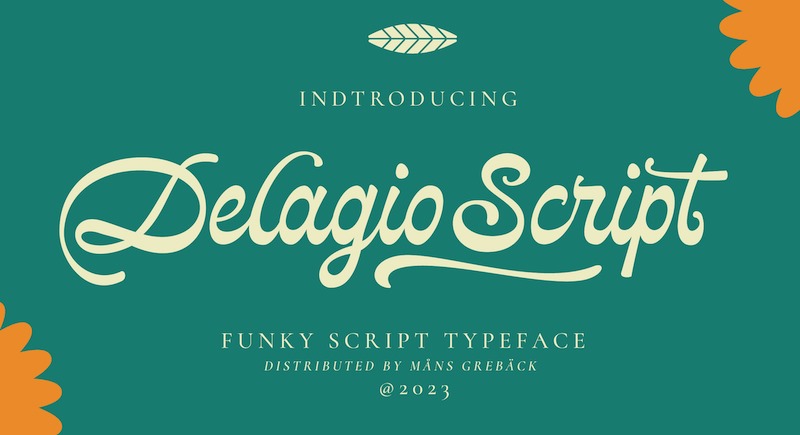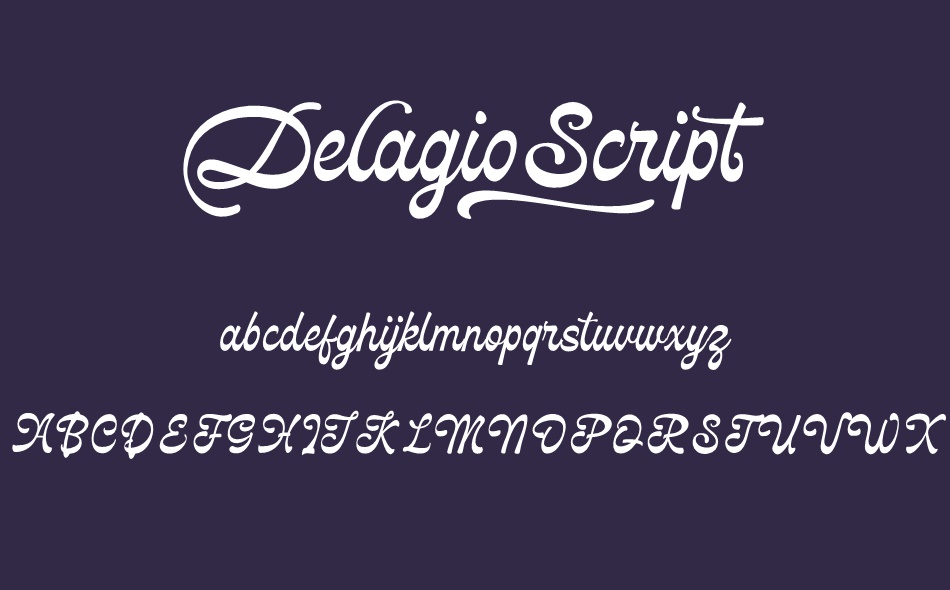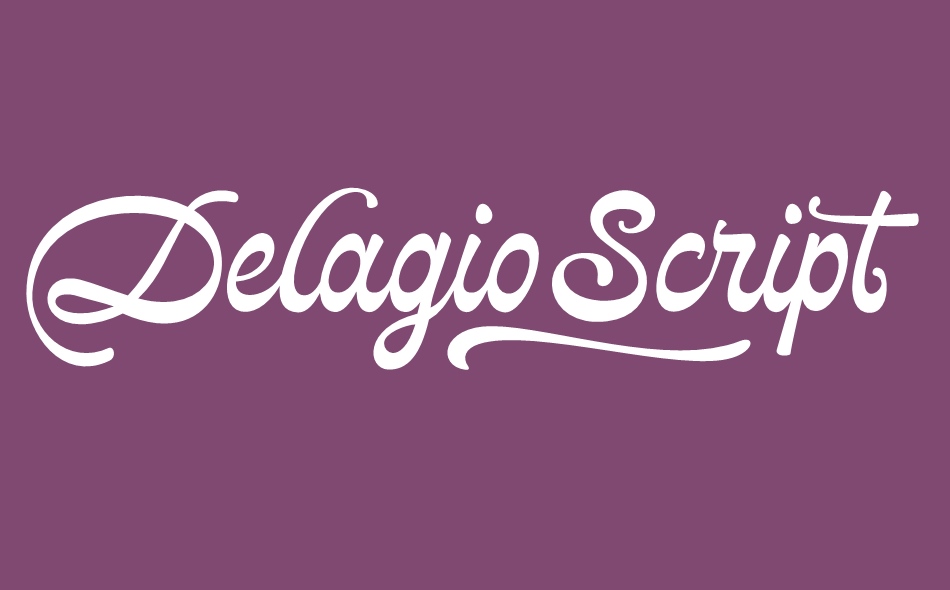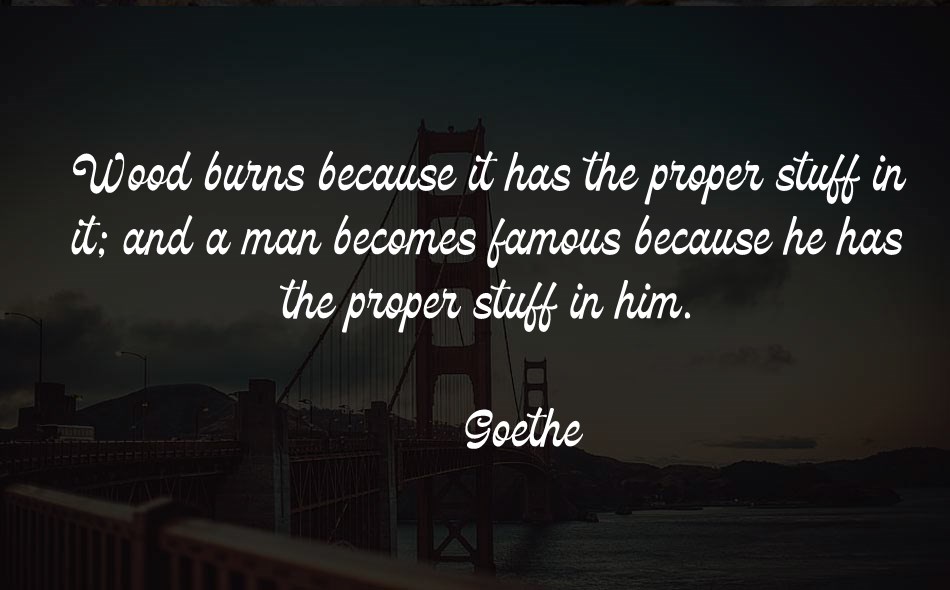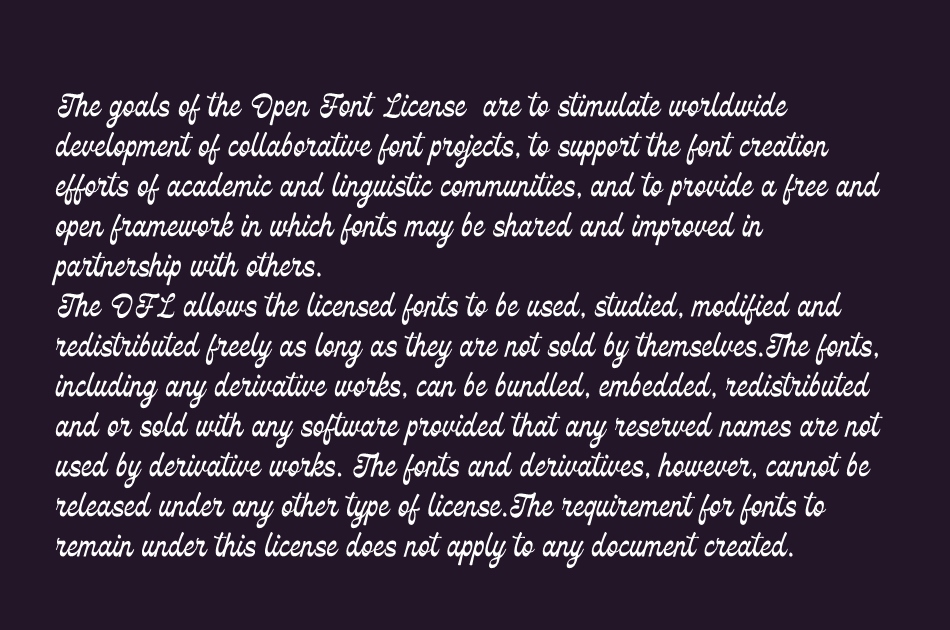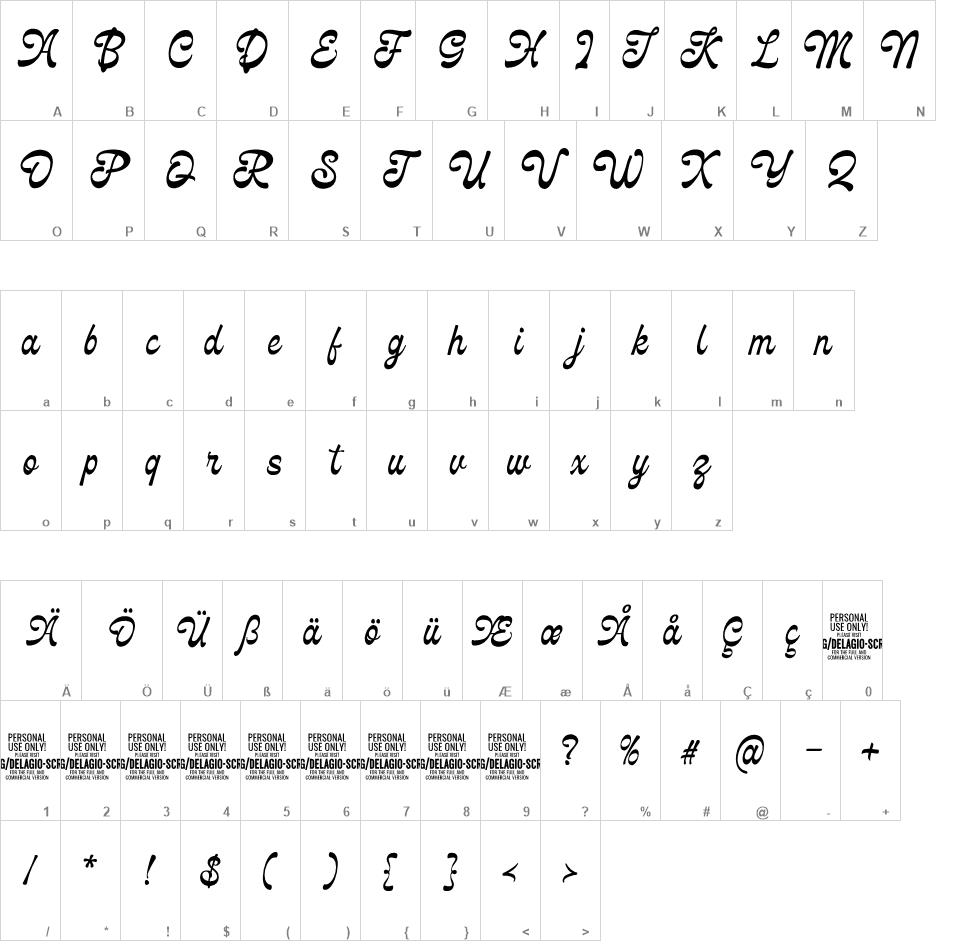
Delagio Script font
Delagio Script is a calligraphic font that combines cursive elegance with a funky, innovative edge. It's a creative and heavy retro-inspired font that embodies the distinctive charm of soft brush strokes.
Use underscores _ to make swashes under words.
Example: Magician_
Delagio Script is a calligraphic font that combines cursive elegance with a funky, innovative edge. This retro-inspired font is both creative and heavy, making it perfect for designs that require a unique and playful touch. Delagio Script is ideal for projects that seek to convey a sense of fun, humor, and originality.
The creation of Delagio Script traces back to a lucky discovery of a vintage magicians' promotional posters. The unique blend of whimsy and elegance in Delagio's lettering were captivating enough to form the base of a typeface that embodied the distinctive charm of entertaining calligraphy strokes. Thus, Delagio Script was born, encapsulating the spirit of serendipity and the magic of a forgotten world.
Use underscores _ to make swashes under words.
Example: Magician_
The Delagio Script font family features four styles that cater to a wide range of design needs: Thin, Regular, Bold, and their respective Italics. These distinct options allow you to create eye-catching compositions that capture the essence of innovation while remaining rooted in vintage aesthetics.
Equipped with advanced OpenType functionality, Delagio Script ensures top-notch quality and provides you with full control and customizability. The font includes stylistic alternates, ligatures, and other features to make your designs truly unique and engaging.